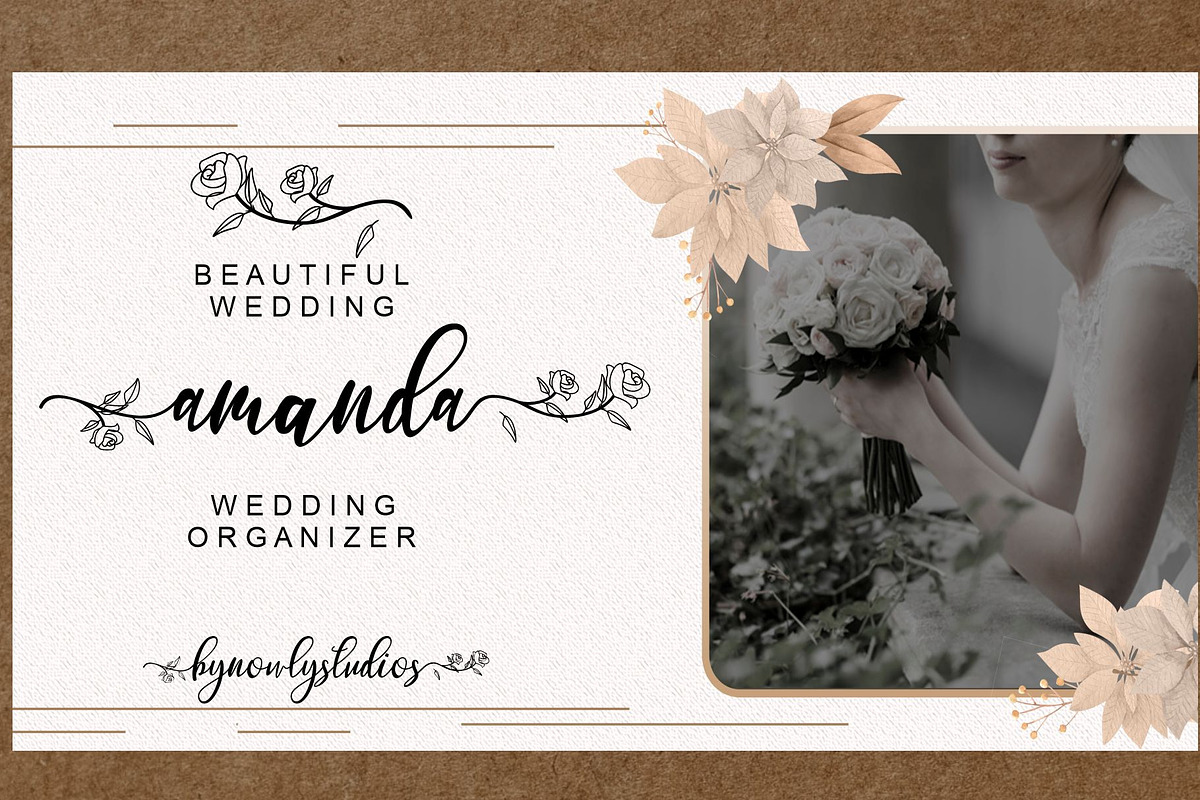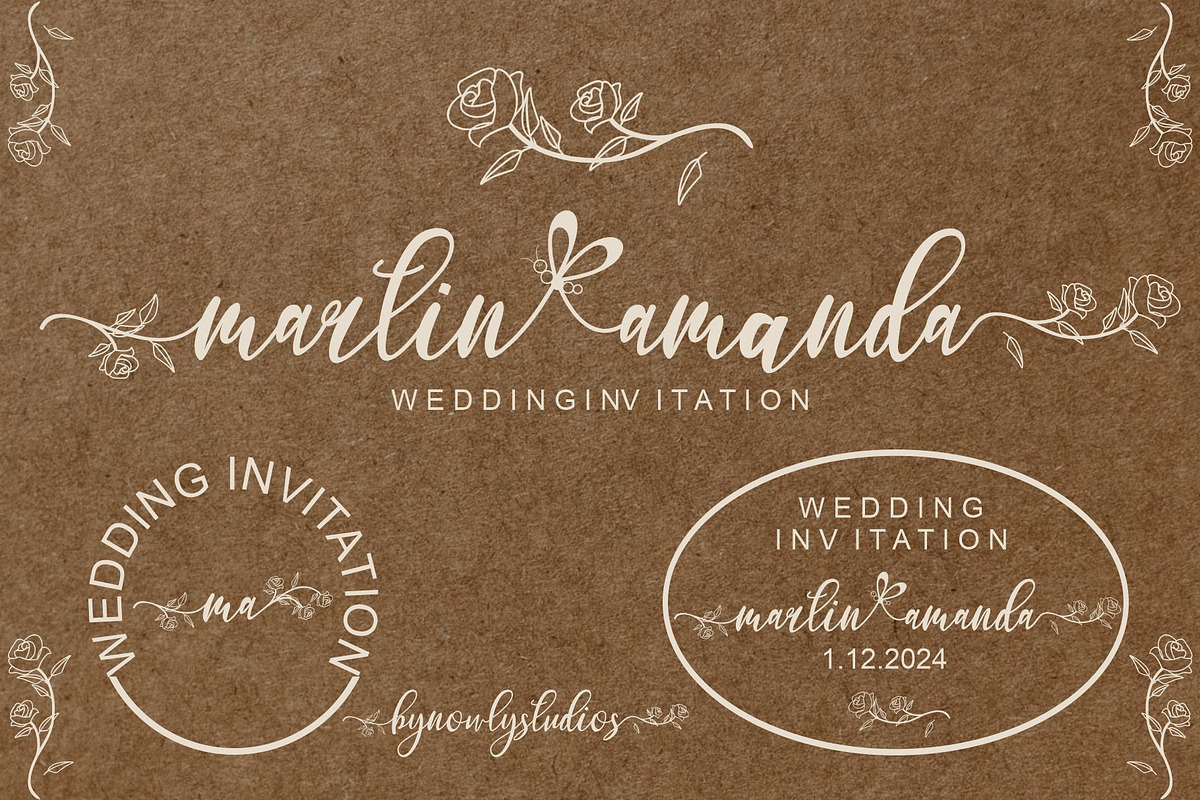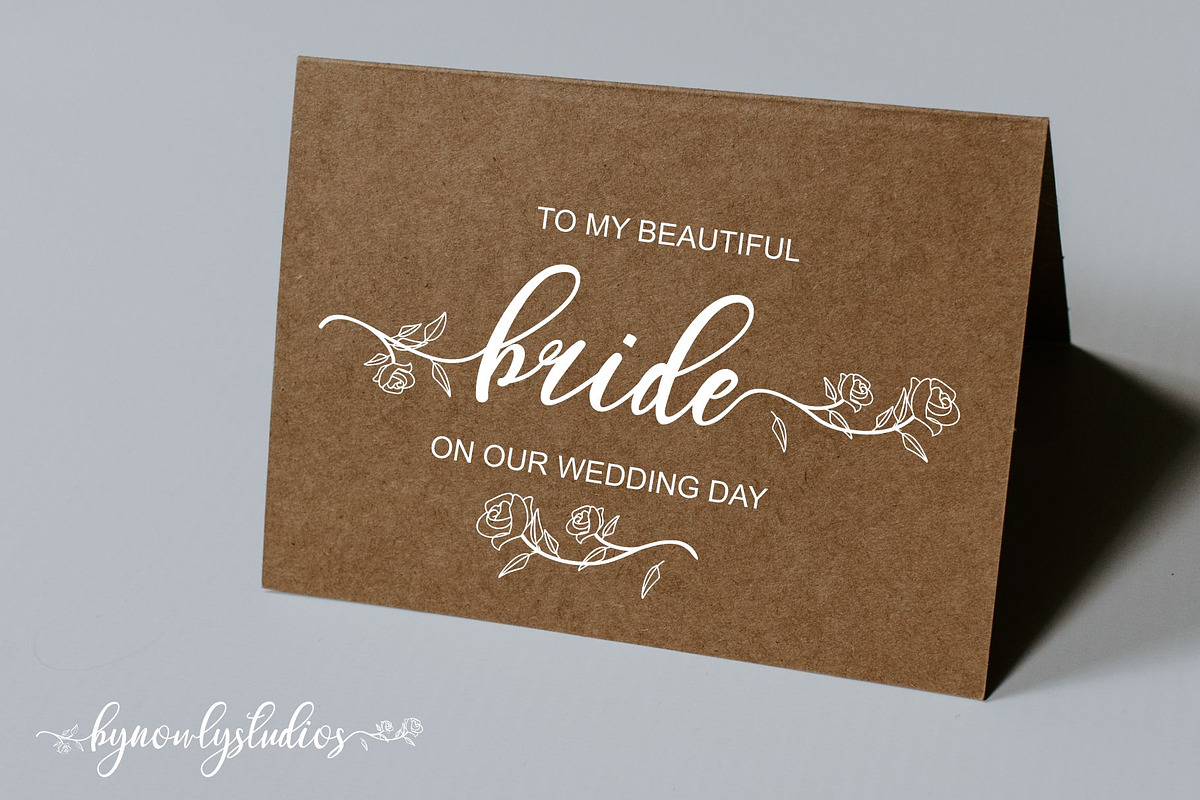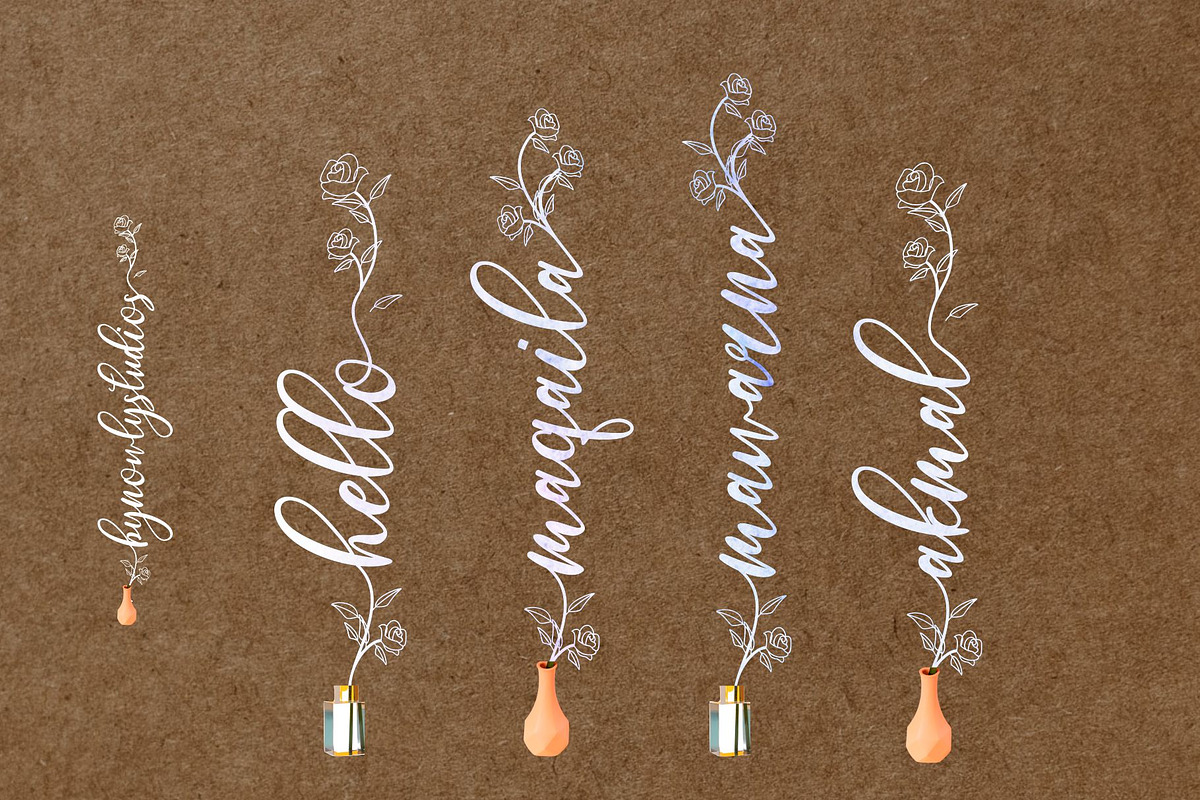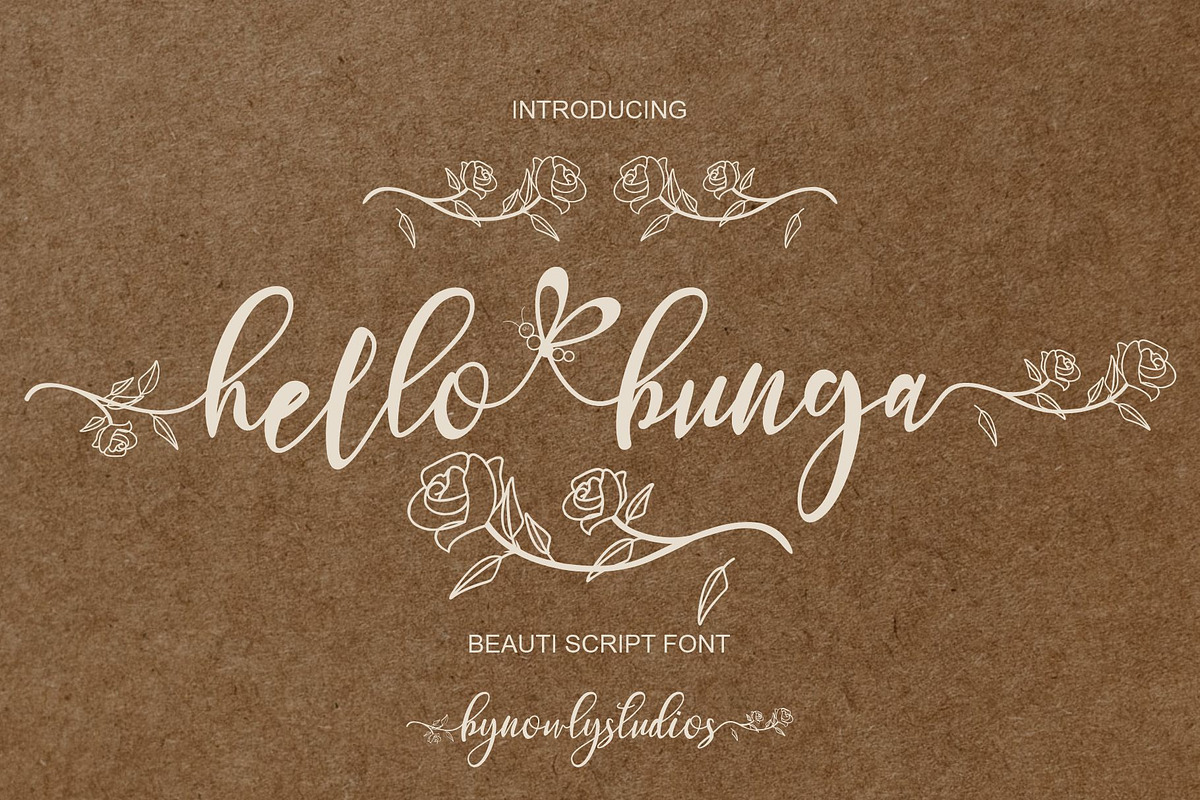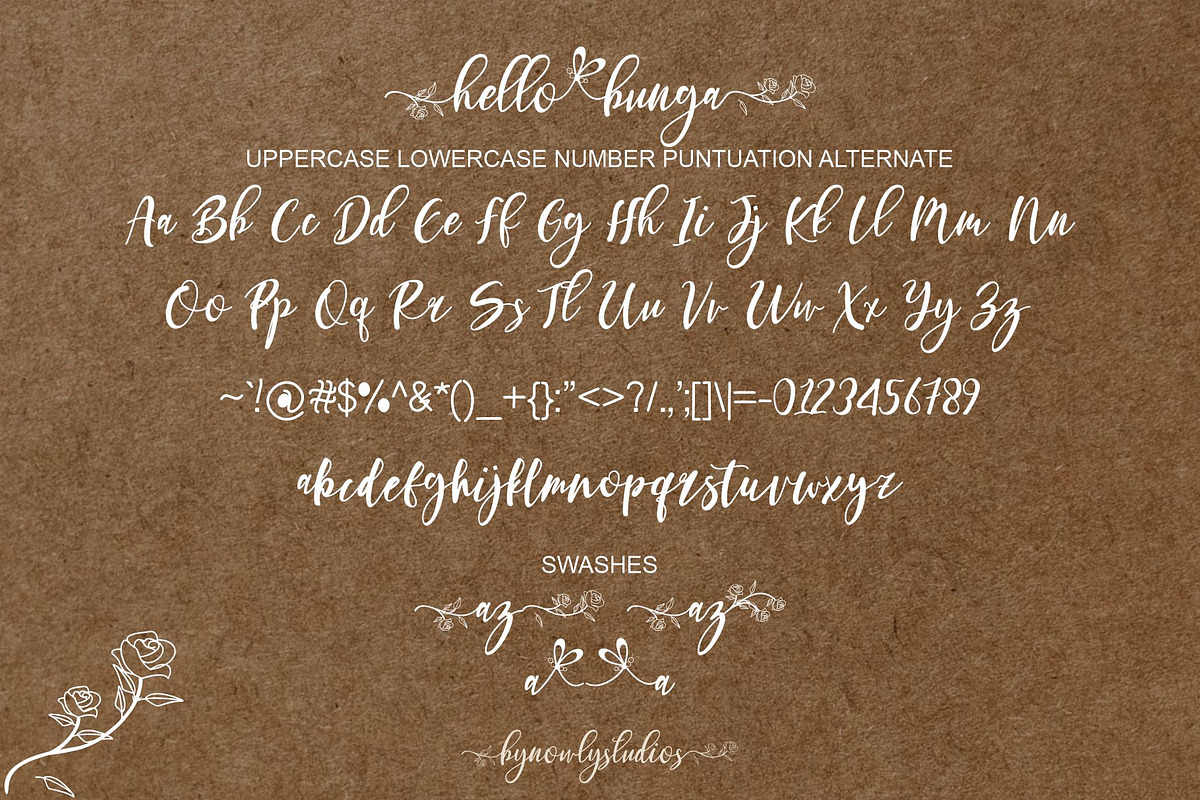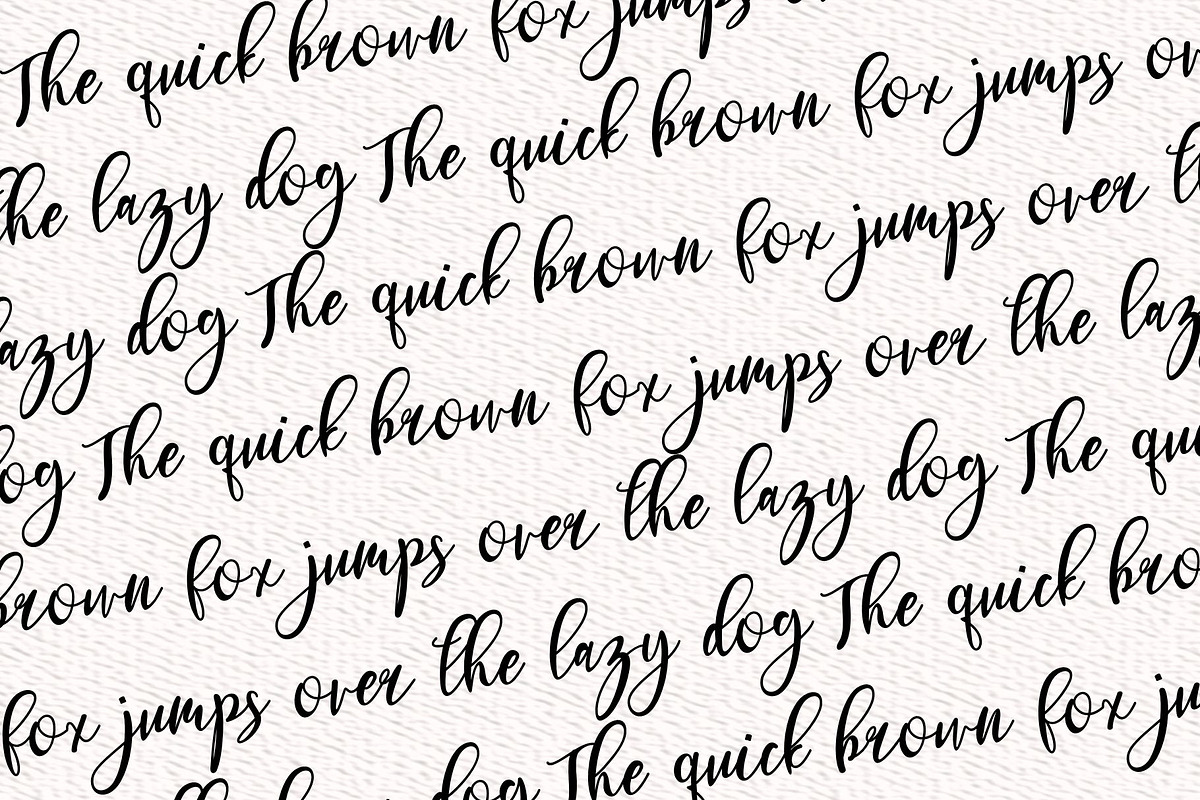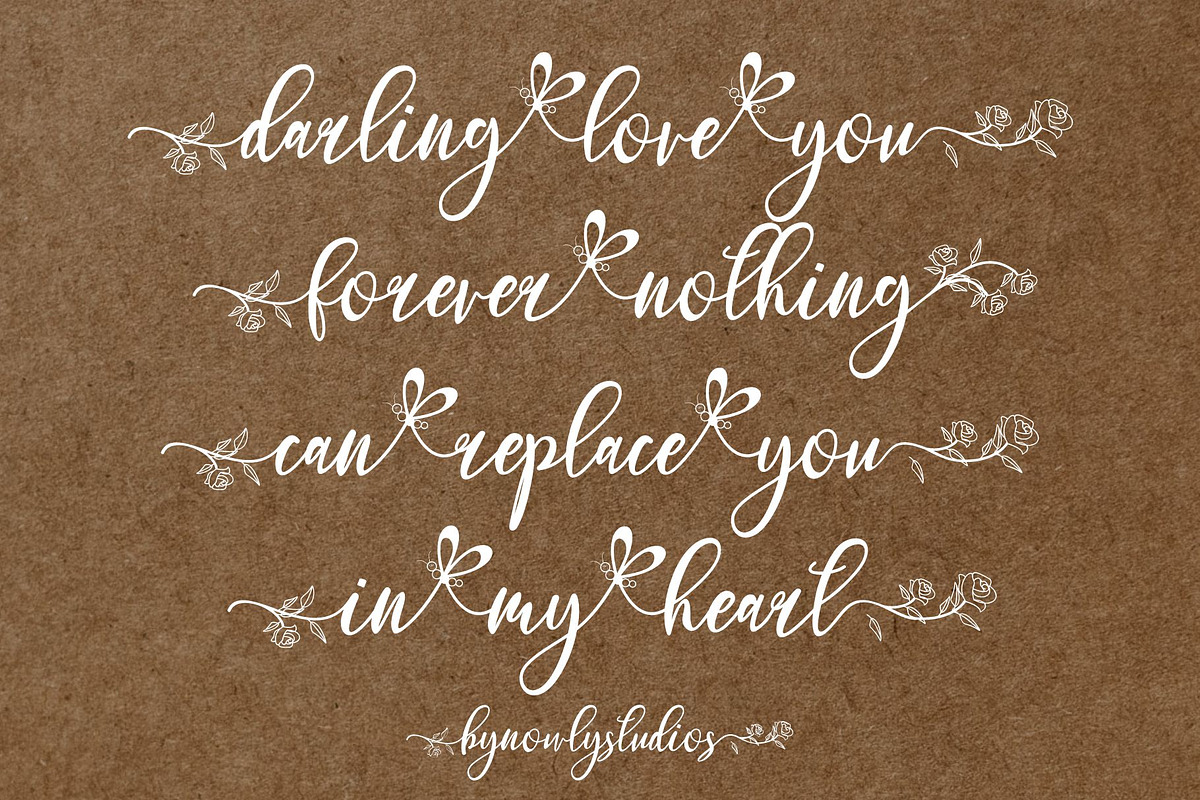
Hello Bunga
Hello Bunga is a modern calligraphy font with casual and beautiful swashes. It can be used for various purposes such as logos, product packaging, wedding invitations, branding, headlines, signage, labels, signatures, book covers, posters, quotes, and more.